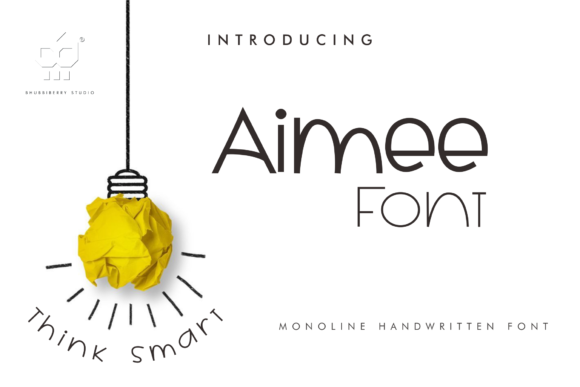
Unleash the Beauty of Quotes with Aimee Font: An Exquisite Touch to Your Creative Designs
In the realm of typography, elegance meets charm in the form of Aimee Font, a breathtaking script font designed to transform your words into captivating expressions. Its meticulous strokes exude a natural and unique flair, inviting you to unlock a world of design possibilities where creativity knows no bounds.
Aimee Font: Where Dreams Take Shape
With its sweet and friendly demeanor, Aimee Font is the perfect companion for designers and creatives seeking to add a touch of warmth and personality to their projects. Its versatility extends across a broad spectrum of design applications, ranging from heartfelt quotes and eye-catching social media posts to elegant wedding invitations and modern logos.
Craft Unforgettable Quotes with Aimee's Alluring Curves
Let Aimee Font elevate your quotes to new heights of beauty. Its graceful lines and playful characters infuse a sense of authenticity and charm into your words, capturing the essence of your message and captivating your audience. Whether you're creating inspiring graphics for social media or designing personalized cards, Aimee Font adds a unique touch that resonates with readers and leaves a lasting impression.
Embrace the Limitless Possibilities of Aimee's Versatility
Aimee Font's versatility extends far beyond the world of quotes. Its adaptability shines in a myriad of creative endeavors, transforming your designs into masterpieces. From crafting chic website headers and eye-catching blog titles to creating stylish invitations and greeting cards, Aimee Font seamlessly blends with your vision, adding a touch of sophistication and charm to every project.
Discover the Magic of Aimee Font: A Journey of Creative Expression
Aimee Font unlocks a realm of creative freedom, where your imagination takes center stage. Its free-flowing style invites you to explore endless possibilities, allowing you to craft designs that reflect your unique personality and style. As you navigate the vast landscape of design, Aimee Font becomes your trusted companion, guiding you towards creating remarkable works of art that leave an indelible mark on your audience.
Step into the World of Aimee Font and Unleash Your Creative Potential
Aimee Font is more than just a font; it's an invitation to embark on a journey of self-expression and artistic exploration. With its natural flow and undeniable charm, Aimee Font elevates your designs to new heights of beauty and elegance. Discover the transformative power of typography and let your creativity soar as you witness the magic of your words come to life in a remarkably captivating way.